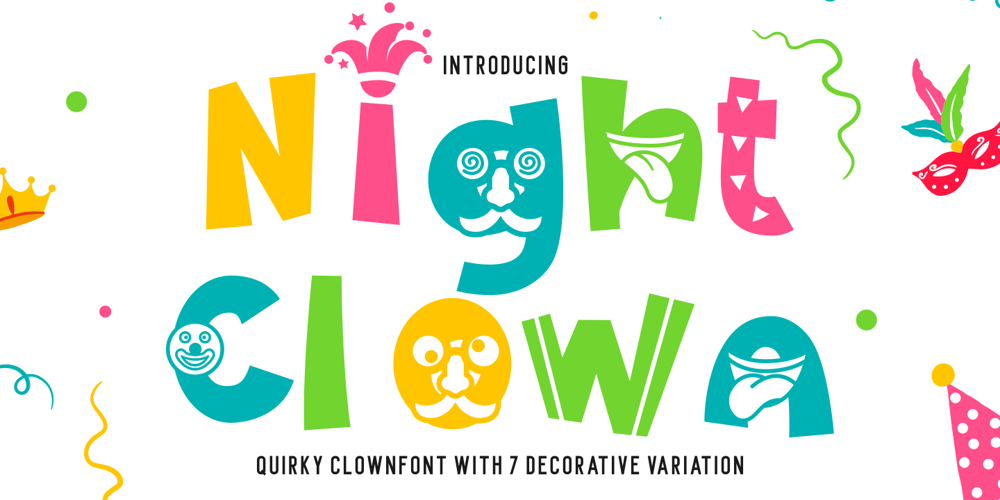
Night Clown Font Family was designed by Putra Novembria Candra Kusuma and published by Putracetol. Night Clown contains 7 styles and family package options. Night Clown – Quirky Clown Font. With its quirky, decorative, and playful design, this font captures the essence of clowns, parties, and April Fools’ festivities. Offering a delightful range of seven variations – regular, clown hat, mask, surprise, laughter, decorative, and funny face – Night Clown is a perfect fit for children-oriented projects, kids’ events, posters, greeting cards, birthday invitations, and even logos.